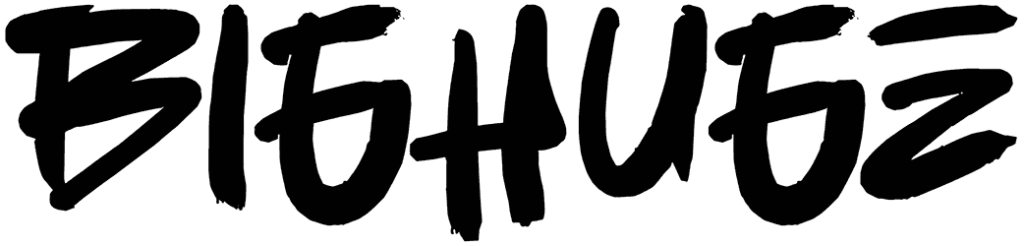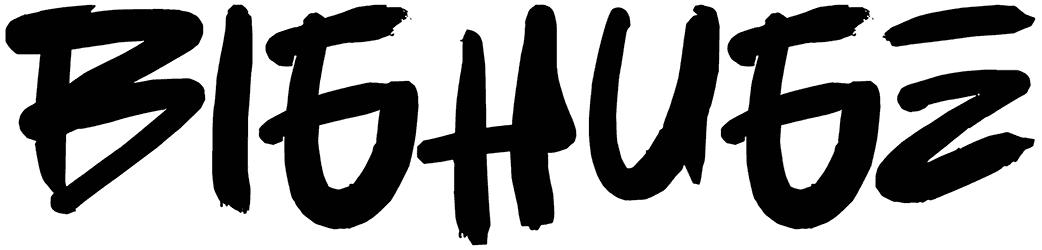
Bighuge Font
Looks like you’ve just found the greatest brush font for when you want to make things feel inspired but also display a tough attitude. Bighuge can give you a hand in both of those aspects. The only thing wrong with it is that there’s no punctuation mark to use, and the letters are all in uppercase. If you don’t mind that, this wild font makes an excellent match for your camping and hiking posters, karate websites, music instrument store signs, etc.